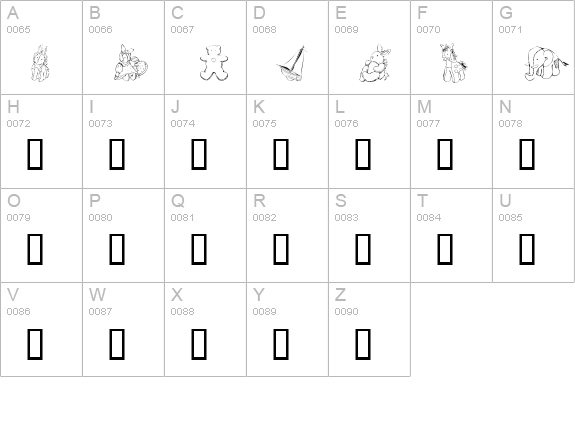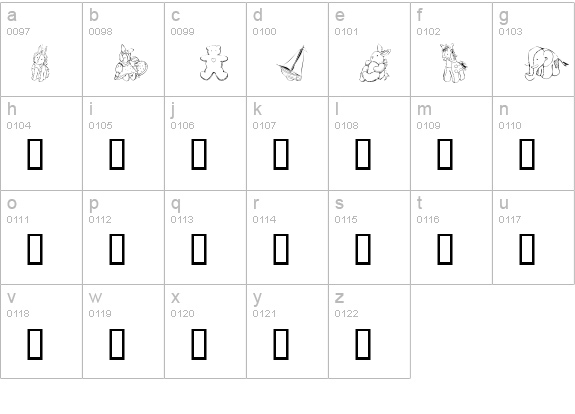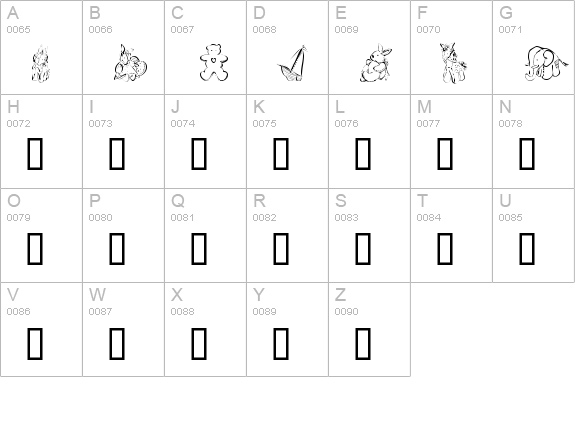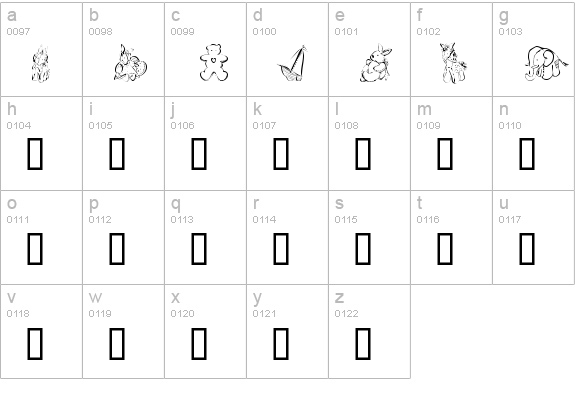
KR Baby's Favorites Font Details
KR Baby's Favorites font is a charming and playful typeface that will add a touch of whimsy to any project. This font features cute and quirky characters that are perfect for creating eye-catching designs for children's books, invitations, posters, and more. With its friendly and approachable style, KR Baby's Favorites is sure to bring a smile to anyone who sees it. The best part is that KR Baby's Favorites font is available for free download at FontsMarket.com. So you can easily add this delightful font to your collection without any cost. Don't miss out on the opportunity to enhance your designs with this fun and versatile typeface. Download KR Baby's Favorites today and let your creativity shine!